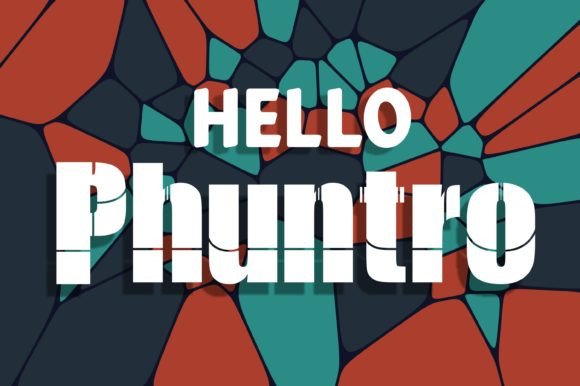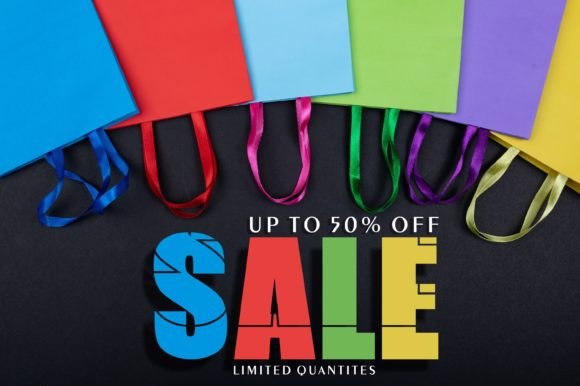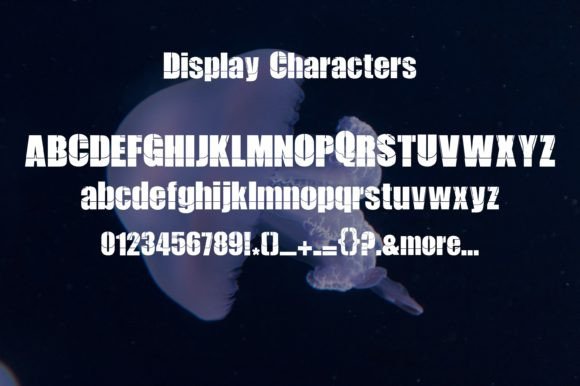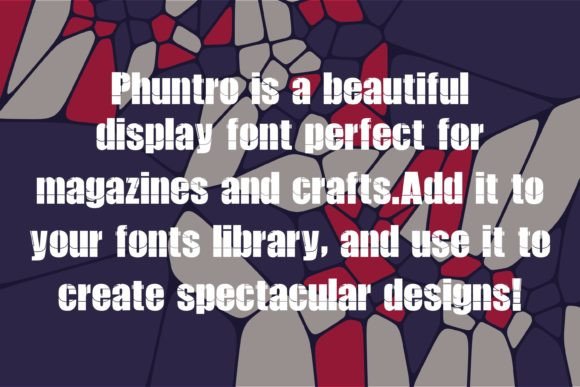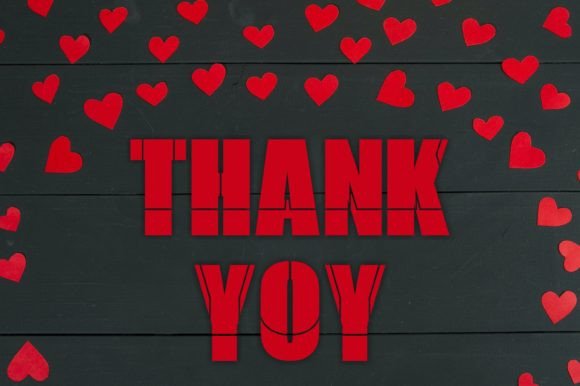
Introduction to Phuntro Font
As designers, we’ve all had those moments when we stumble upon a font that makes our creative juices flow. It’s like a breath of fresh air, a spark that ignites our imagination, and sets our design projects ablaze. For me, that moment came when I discovered the Phuntro Font. Its eccentric and futuristic design is a game-changer for any project that requires a touch of whimsy and sophistication.
The Phuntro Font is more than just a pretty face; it’s a high-quality design resource that’s perfect for magazines, crafts, and any creative project that needs a unique touch. With its transparent background and free download option, it’s an absolute steal for designers who are looking to elevate their designs without breaking the bank.
As a valuable addition to your font library, the Phuntro Font is sure to inspire some of your most creative work yet. Whether you’re working on a magazine cover, a craft project, or a design concept, this font is sure to add that extra oomph that sets your project apart from the rest.
Key Features of Phuntro Font
- High-quality design resource with a unique, creative style perfect for various projects.
- Perfect for creative projects, including graphic design, digital art, and typography-based designs.
Honest Review: Phuntro Font
I recently came across the Phuntro Font and I must say it’s been a game-changer for my design projects. This font is perfect for creating a unique and playful atmosphere in any creative project. I love how versatile it is and can be used in a variety of design contexts, from logos to headings.
What works well with the Phuntro Font is its ability to stand out with a transparent background, allowing me to add a pop of color or texture behind it. It’s also incredibly easy to download and use in my design workflow, making it a valuable resource for any designer. The free download option is a huge plus, as it saves me time and money in the long run.
Here are some of the benefits I’ve experienced with the Phuntro Font:
- High-quality design that adds a touch of whimsy to any project
- Easy to use and customize with a transparent background
- Only available in a limited number of font styles
- May not be suitable for formal or professional projects
Overall, I’m really impressed with the Phuntro Font and would highly recommend it to any designer looking to add some creativity to their projects. ⭐️⭐️⭐️⭐️⭐️
Tips for Getting the Most Out of Phuntro Font
Use Phuntro Font on a transparent background to give your design a clean and minimalist look. Experiment with different font sizes and styles to add depth and visual interest to your design. You can also pair Phuntro Font with other high-quality design resources to create a unique and creative project.
Phuntro Font is ideal for designing logos, branding materials, and marketing collateral. It’s also great for creating digital products, such as ebooks, templates, and printables. With its high-quality design and free download option, Phuntro Font is a valuable design resource for any creative project.